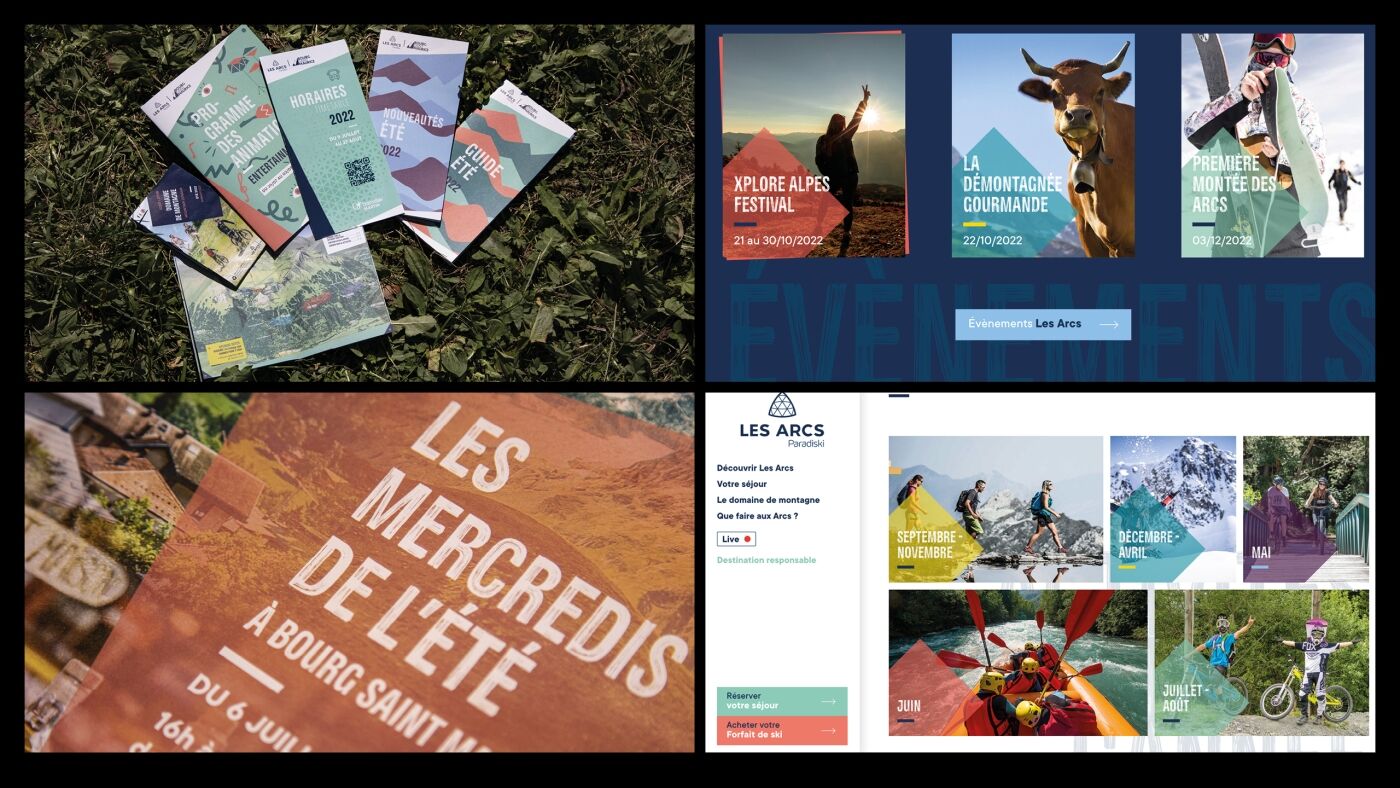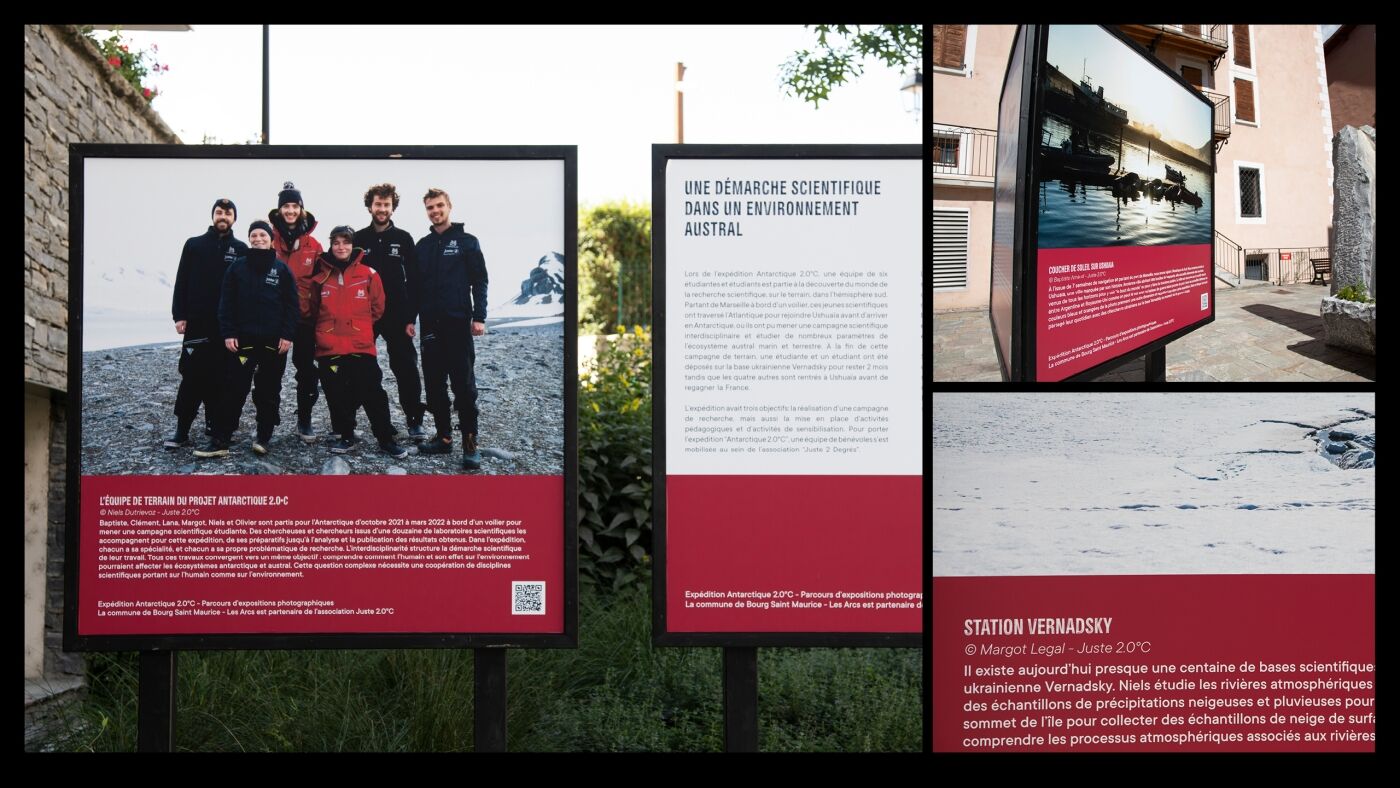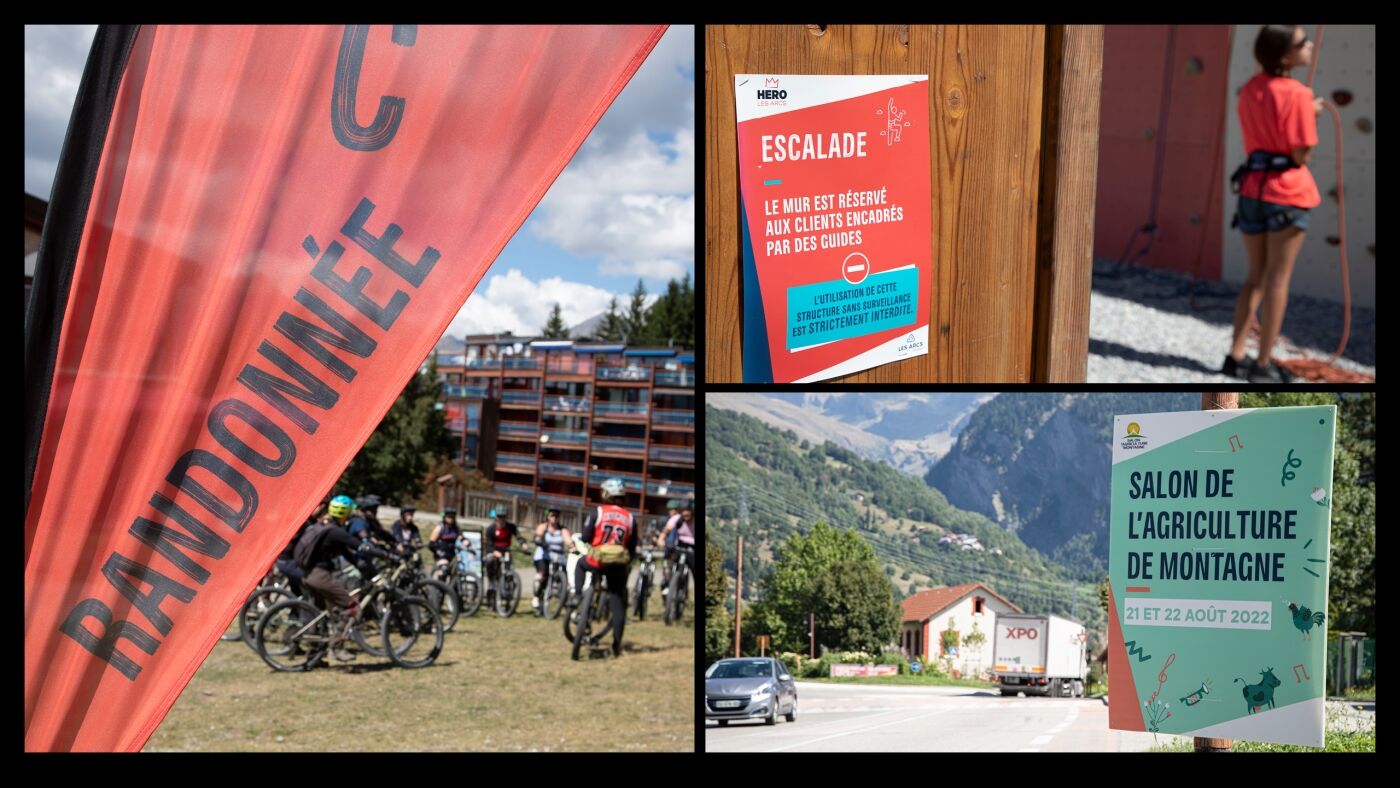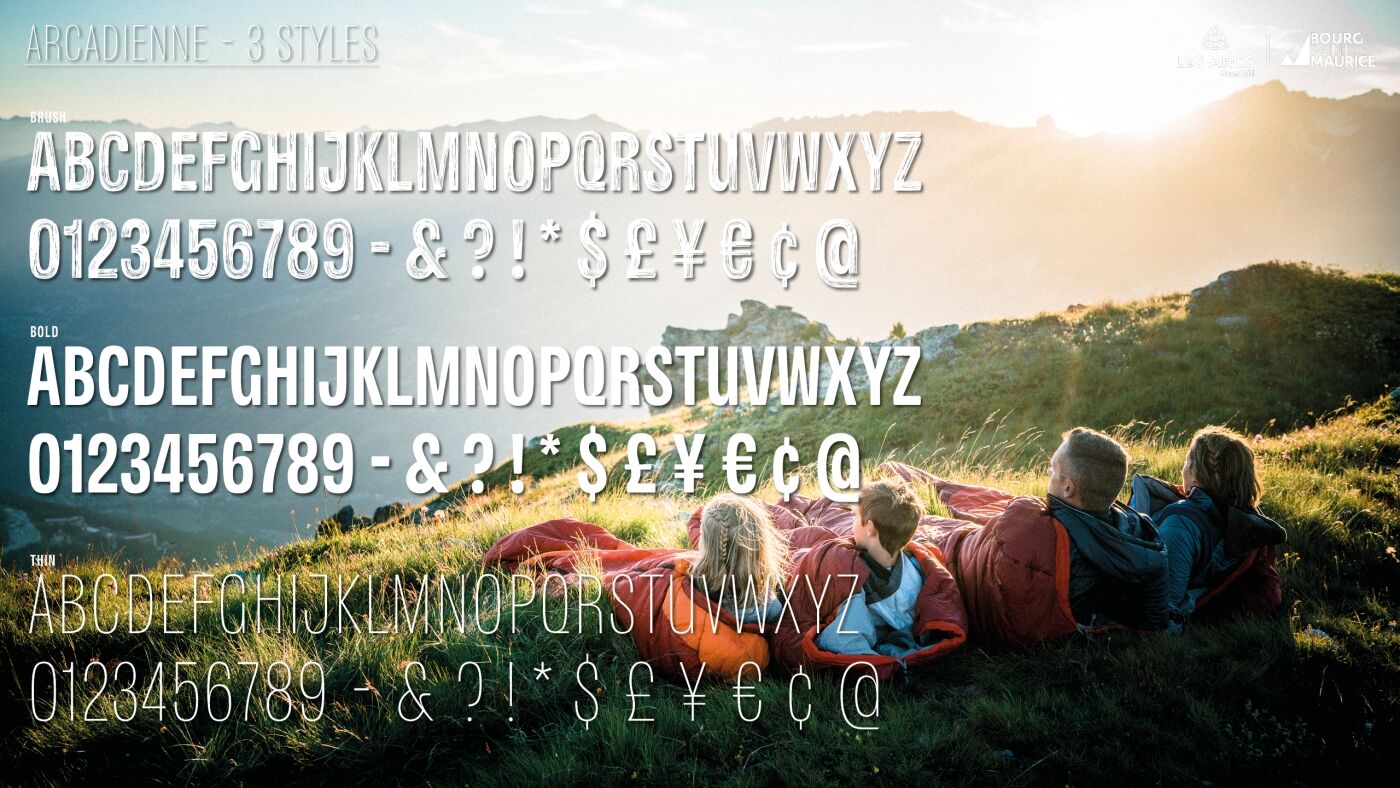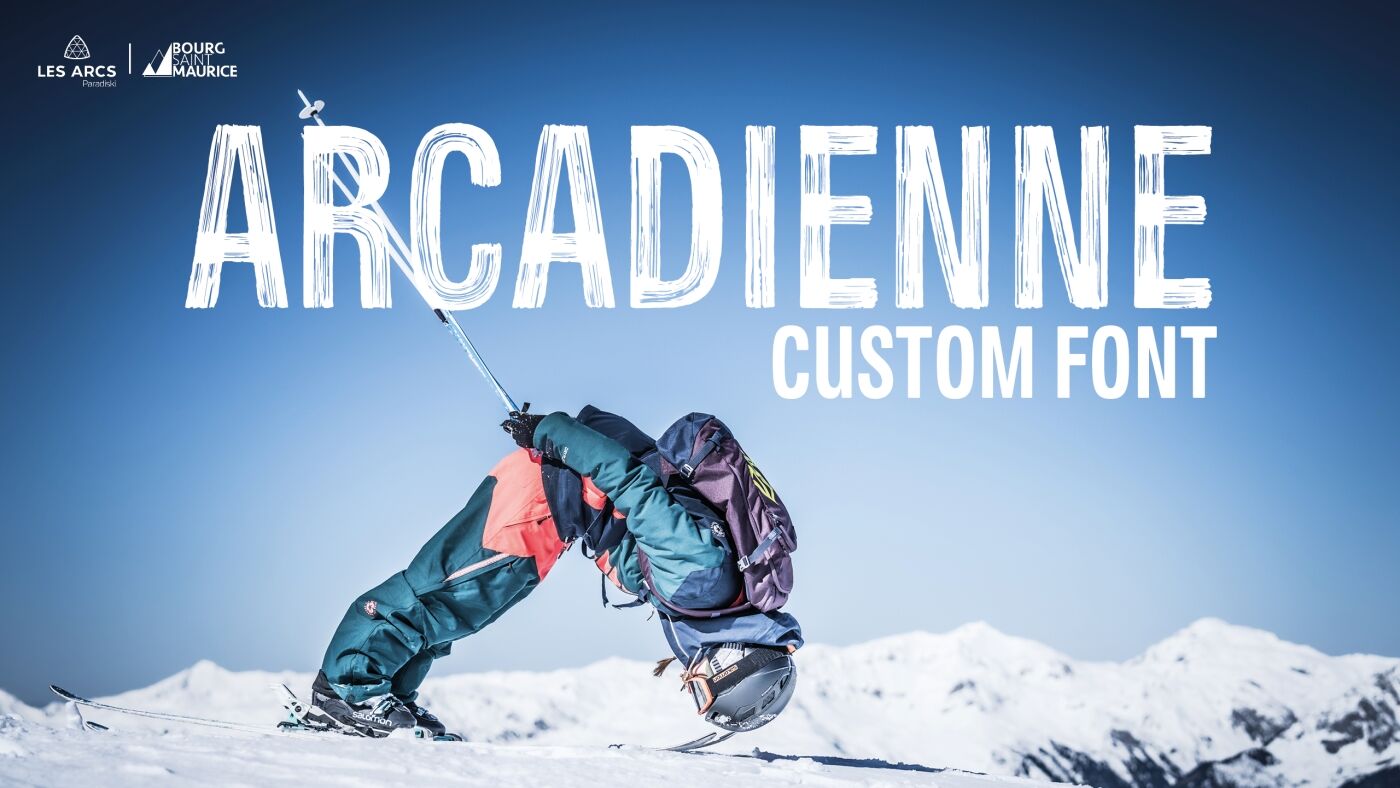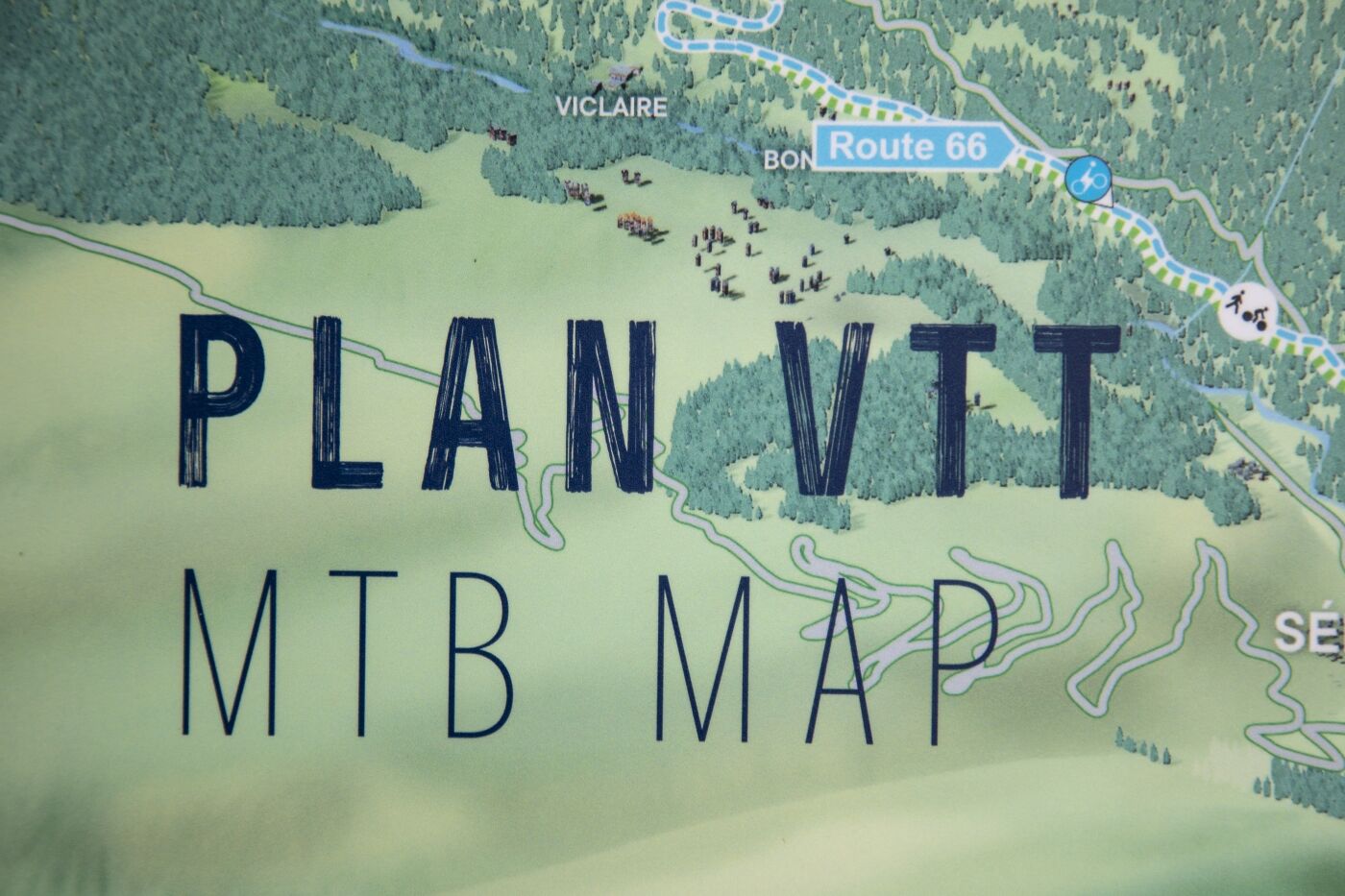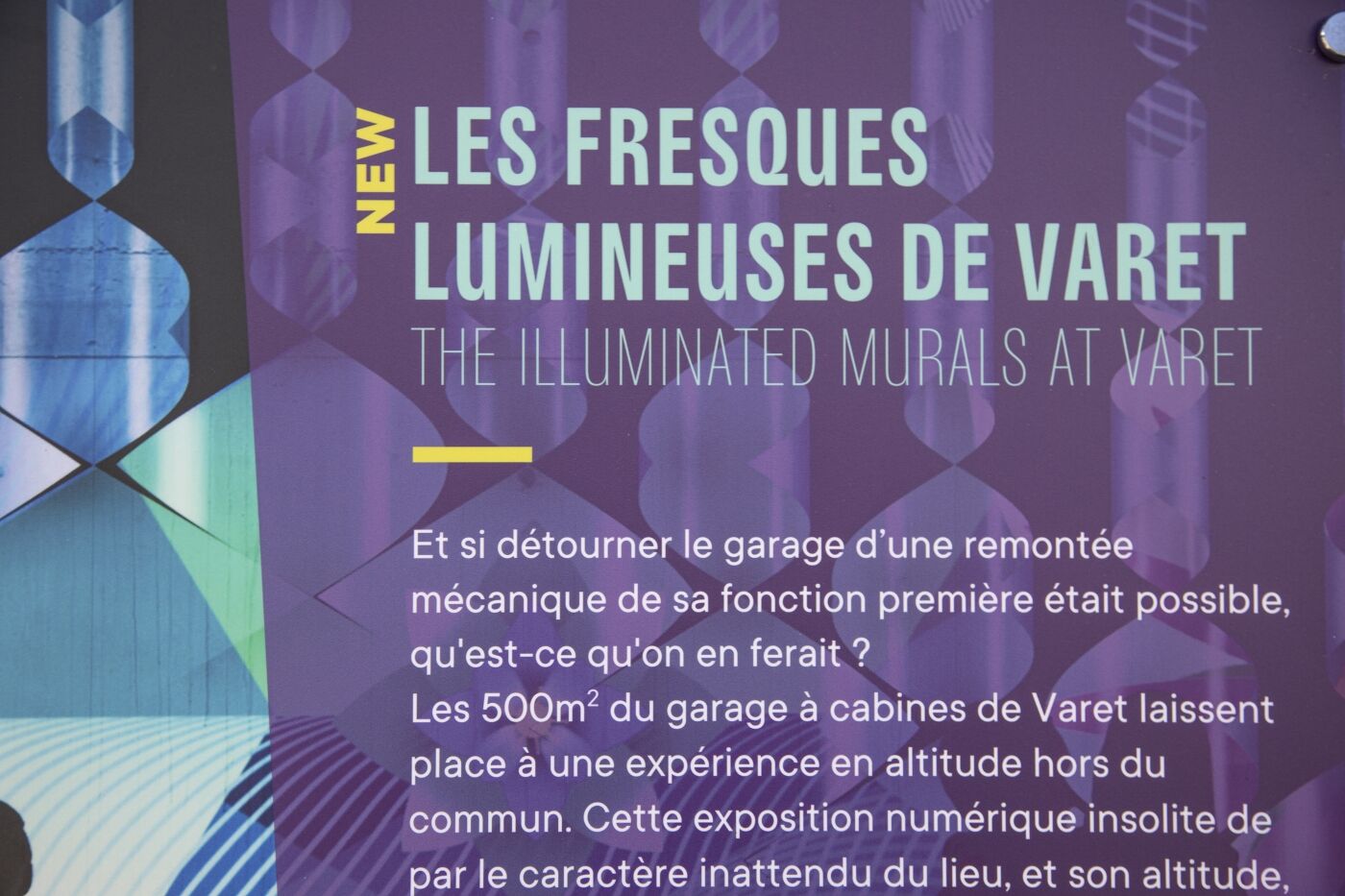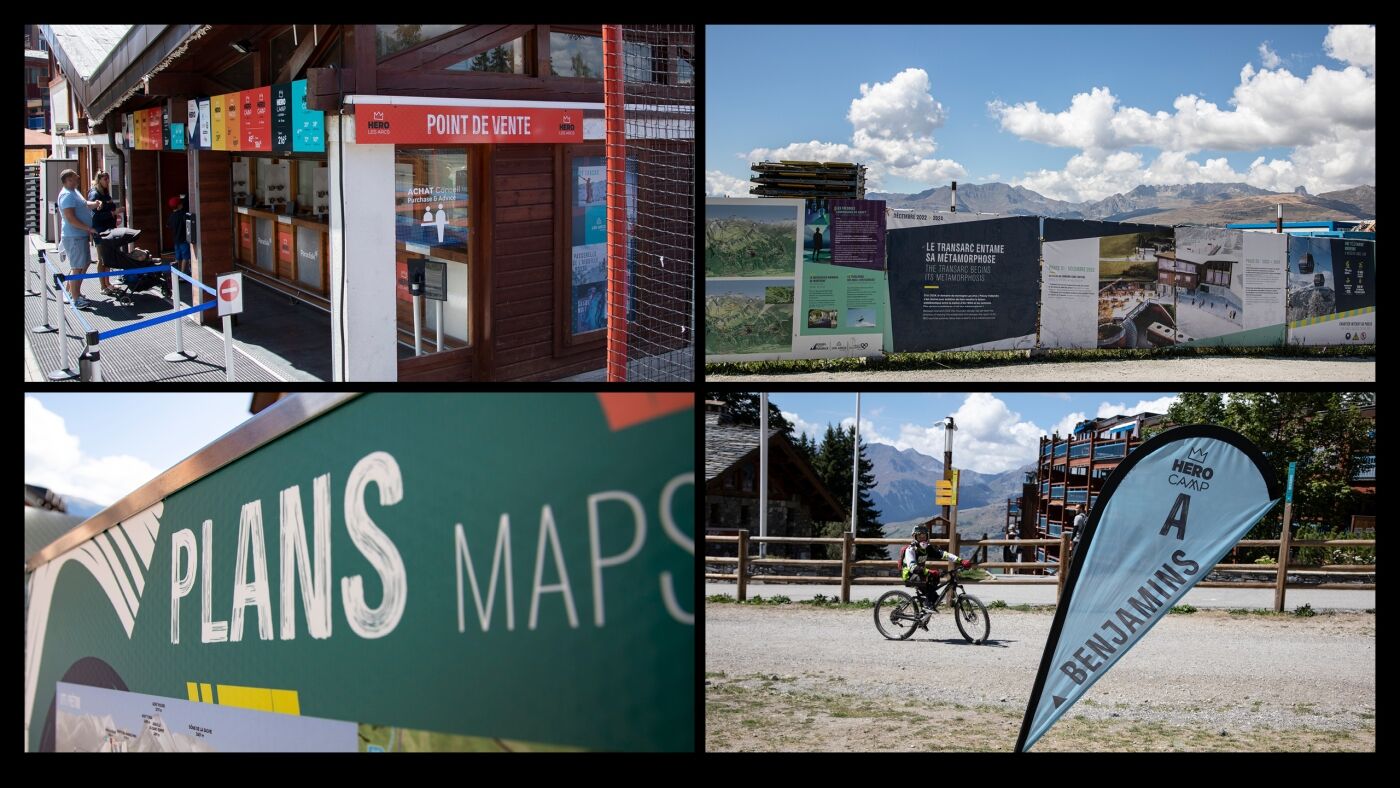
Arcadienne
I am thrilled to present "Arcadienne," a custom typeface I meticulously designed for the esteemed Wearemerci agency, as part of the Les Arcs Bourg Saint Maurice identity. The versatility of this typeface extends beyond branding, as it was also utilized for the captivating "Antartique 2.0" exhibition in Bourg Saint Maurice.
Initially commissioned as a condensed brush typeface for titles, "Arcadienne" evolved into a comprehensive design solution. This condensed custom typeface is perfectly suited for titles and headlines, offering a captivating visual presence.
With three styles - Brush, Bold, and Thin - "Arcadienne" strikes a harmonious balance between form and function. Its condensed design optimizes space, while its expressive brush-inspired strokes bring dynamic energy to typographic compositions.